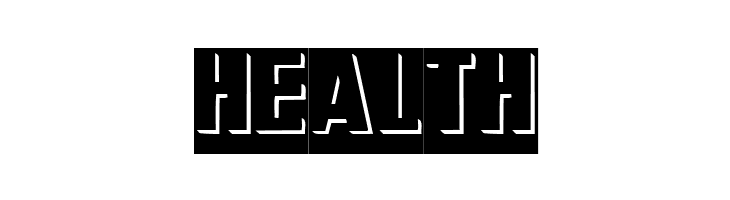
Photonica Font
A futuristic, angular font with a sleek, modern design.
Excellentia in excelsis Font
An elegant, sophisticated script font with intricate swirls and flourishes.
Photonica Straight Font
A futuristic, geometric font with sharp, angular lines and a sleek design.
Atomic Font
A futuristic, geometric font with bold, rounded shapes and unique cutouts.
floki Font
A bold, runic-inspired font with sharp angles and geometric shapes.
Lie to Me Font
A cursive, handwritten-style font with elegant, flowing characters.
scretch Font
A decorative, hand-drawn font with a whimsical and artistic style.
LietoMe Font
Elegant cursive font with flowing, connected letters and smooth curves.
Lietz Block Demo Font
A bold, blocky typeface with strong, uniform characters ideal for impactful designs.
Lietz LindauHamburg Font
A bold, rounded font with a vintage, handcrafted texture.
VI Huyen Lieu 1.0 Font
An elegant, flowing script font with a graceful, handwritten style.
assign Font
A dynamic and expressive handwritten font with fluid, spontaneous strokes.
fail Font
A rugged, distressed font with a hand-drawn, textured appearance.
Liebefinden Font
A playful, handwritten font with bold, rounded characters and a whimsical style.
Liebe finden Font
A playful, bold handwritten font with rounded characters and a whimsical style.
busseta Font
A bold, distressed font with a grunge, hand-drawn aesthetic.
Lieb Mütterlein Font
A decorative font with characters enclosed in heart shapes, perfect for romantic designs.
minus Font
A decorative, distressed font with a chaotic, hand-drawn style.
VI Huyen lieu H 1.0 Font
An elegant script font with flowing, cursive characters and graceful curves.
True Lies(RUS BY LYAJKA) Font